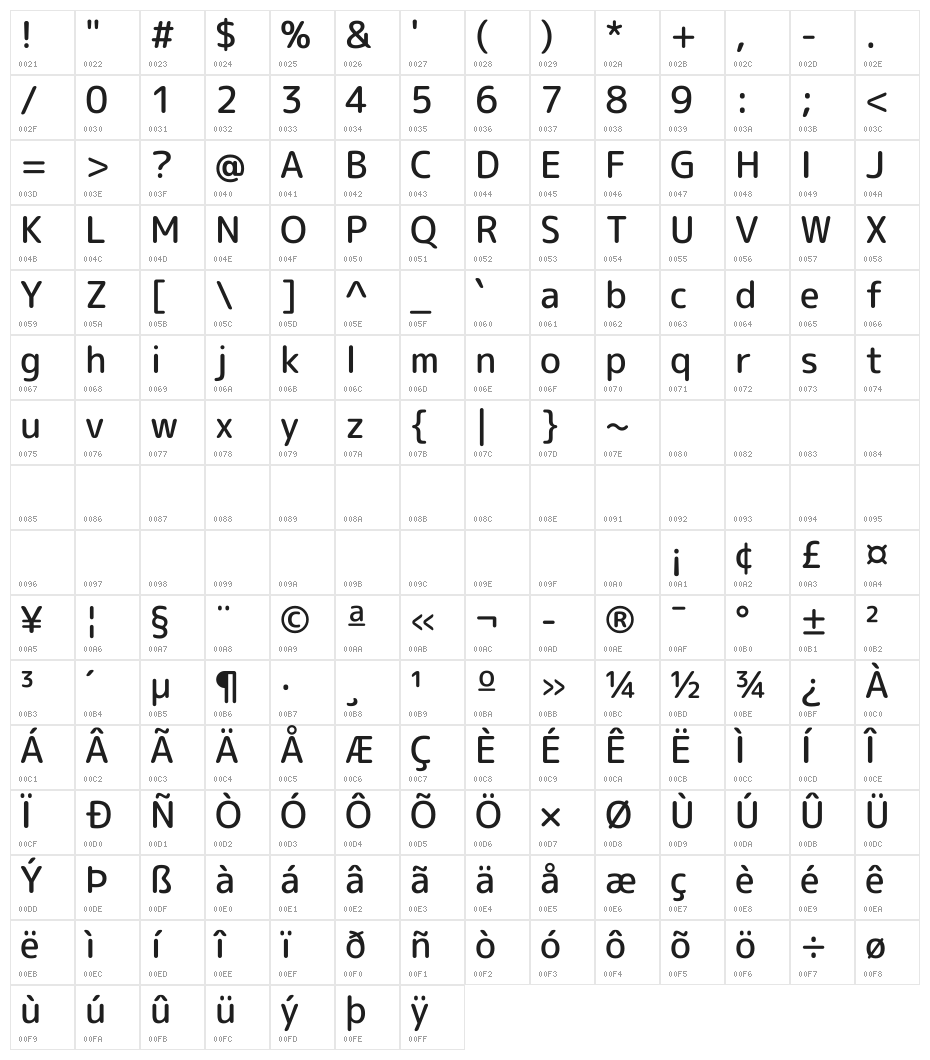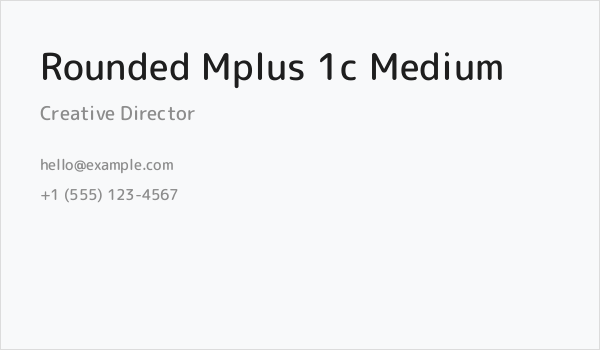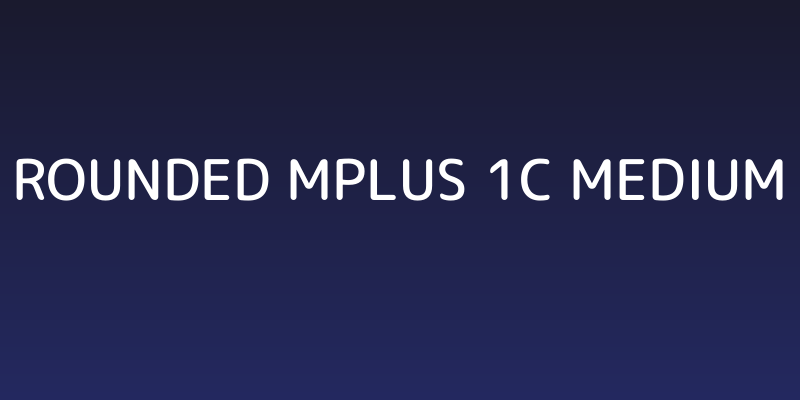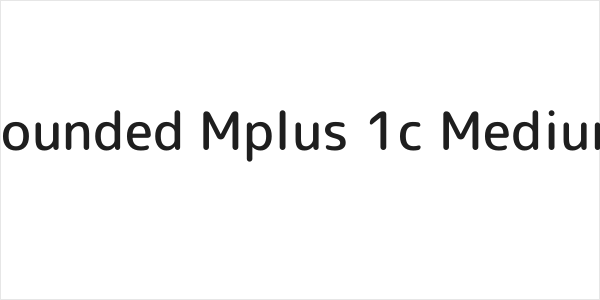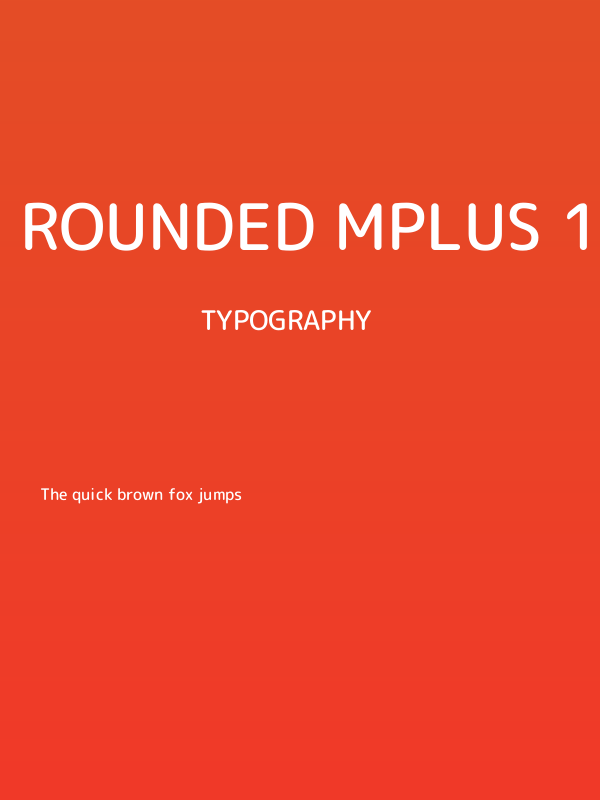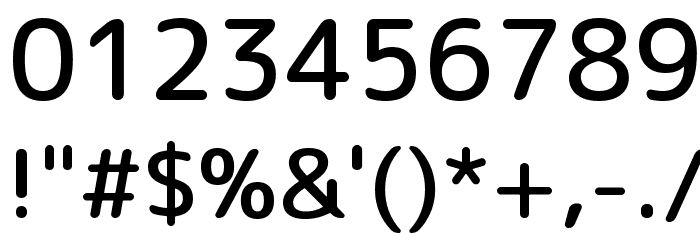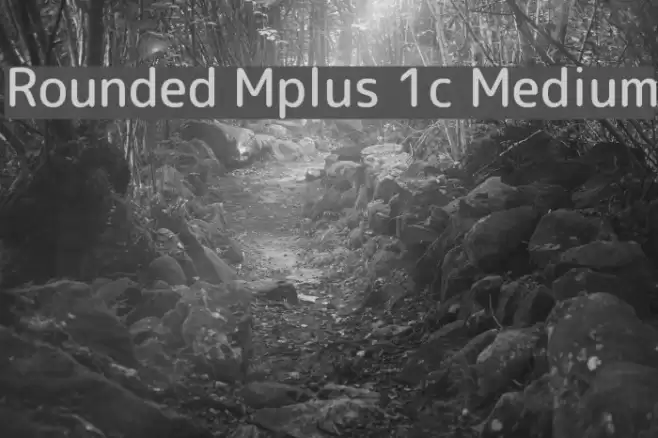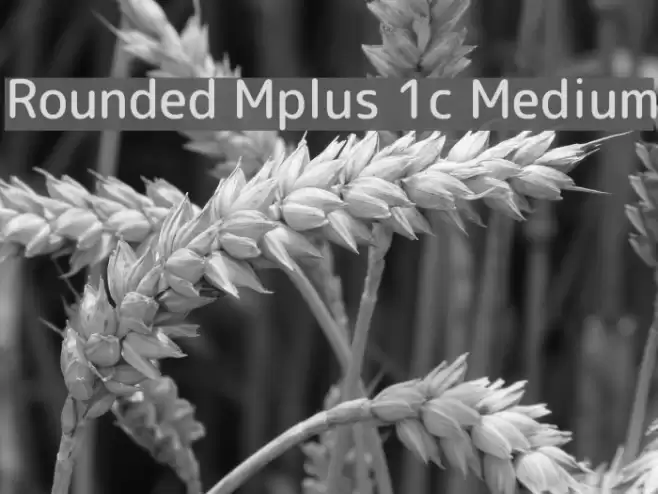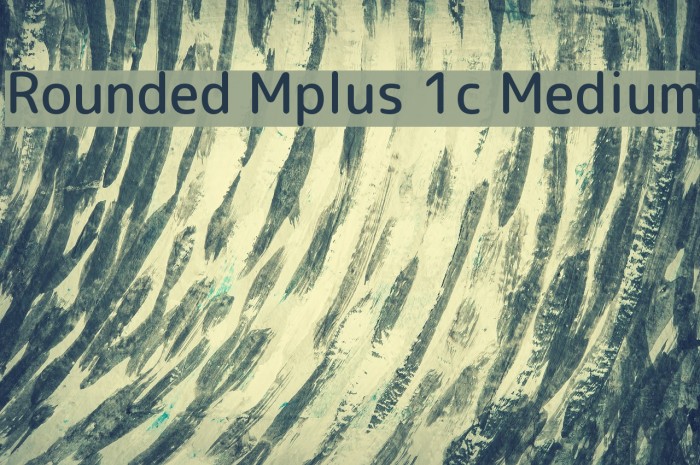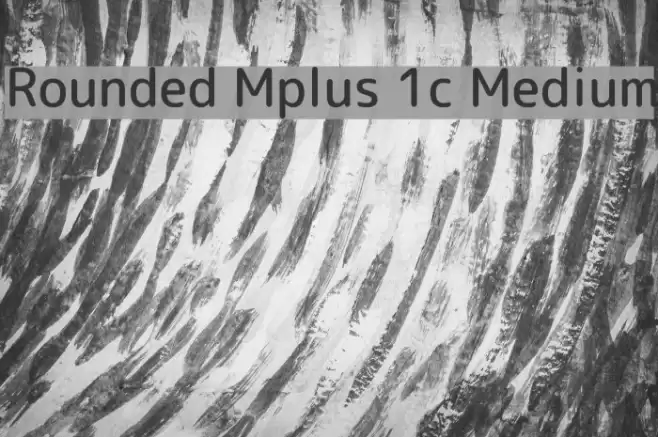
Rounded Mplus 1c Medium Font
Rounded Mplus 1c Medium Description
This font features a clean, modern design with rounded edges that give it a friendly and approachable appearance. The characters are evenly spaced, providing a balanced and harmonious look. The uppercase and lowercase letters maintain a consistent style, with smooth curves and a uniform stroke width. The numerals and special characters are clear and legible, making them suitable for various applications. The overall design is versatile, making it ideal for both digital and print media. Its simplicity and readability make it a great choice for user interfaces, websites, and branding materials.
| Use Case | Headlines, Body text, Logos |
| Proposed Projects | Ideal for user interfaces, websites, branding, and print media. |